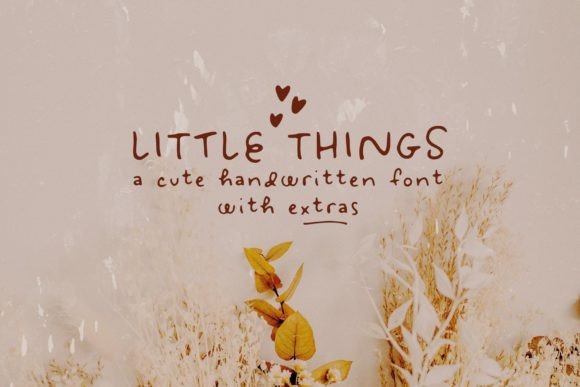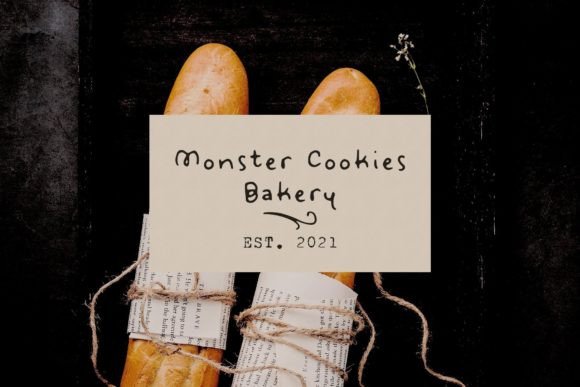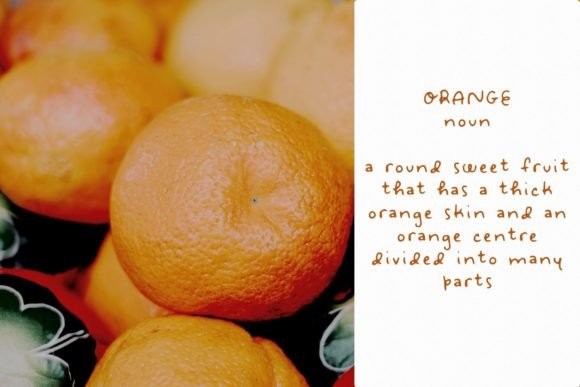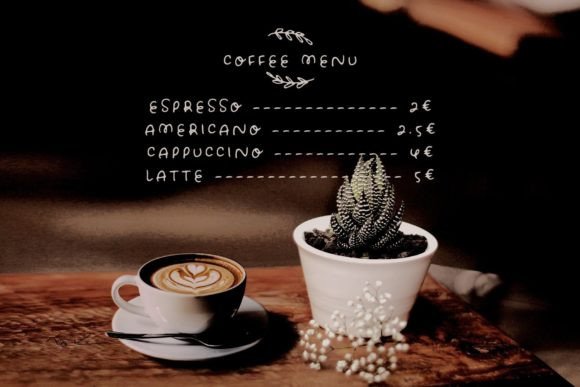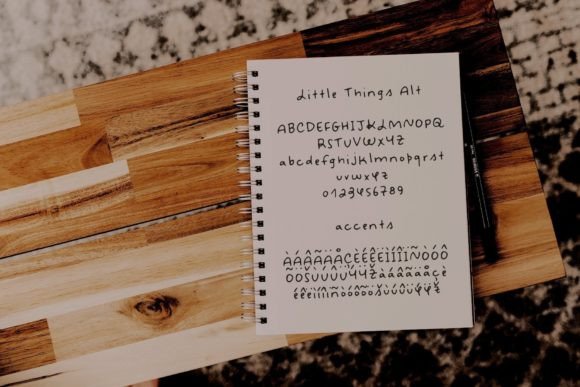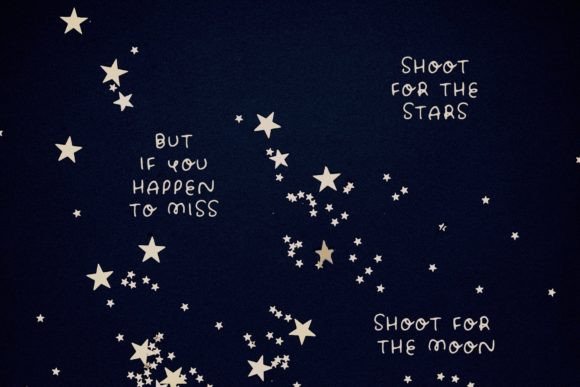
Little Things is a cute handwritten font with an alternate character set and lots of extras (underlines, doodles, arrows, words). Perfect to include in cute handmade designs, such as logos, packaging, prints and postcards, patterns, and social media posts.
Little Things Font